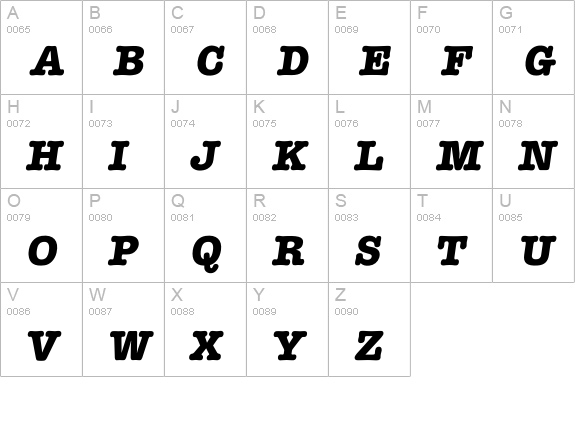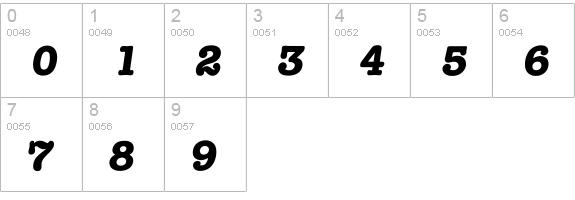
Itypewriter Bold is a strong, high-contrast variant in the Itypewriter typeface family \xE2\x80\x94 well suited to headlines, attention-grabbing titles, and strong calls-to-action.
Introducing Itypewriter Bold, a sleek and sophisticated font that combines the timeless elegance of a classic typewriter with a bold and modern twist. This font exudes confidence and professionalism, making it the perfect choice for any design project that requires a touch of sophistication and style. Itypewriter Bold features clean and crisp lines, with each letter meticulously crafted to perfection. The bold weight of this font adds a level of impact and presence, making your words leap off the page and capture the attention of your audience. But what truly sets Itypewriter Bold apart is its versatility. Whether you're designing a logo, creating a poster, or crafting a unique typography project, this font can adapt to any style or concept effortlessly. It effortlessly combines the elegance of the past with the boldness of the present, creating a harmonious balance that is both timeless and contemporary. And the best part? Itypewriter Bold is available for free download at FontsMarket.com. Yes, you read that right - this incredible font can be yours without spending a dime. FontsMarket.com is your one-stop destination for high-quality fonts, and with Itypewriter Bold, you can elevate your design projects to new heights without breaking the bank. So don't wait any longer. Download Itypewriter Bold today and unlock a world of creative possibilities. Whether you're a professional designer or a passionate hobbyist, this font will become an invaluable tool in your arsenal. Embrace the power of Itypewriter Bold and watch your designs come to life with elegance and boldness.